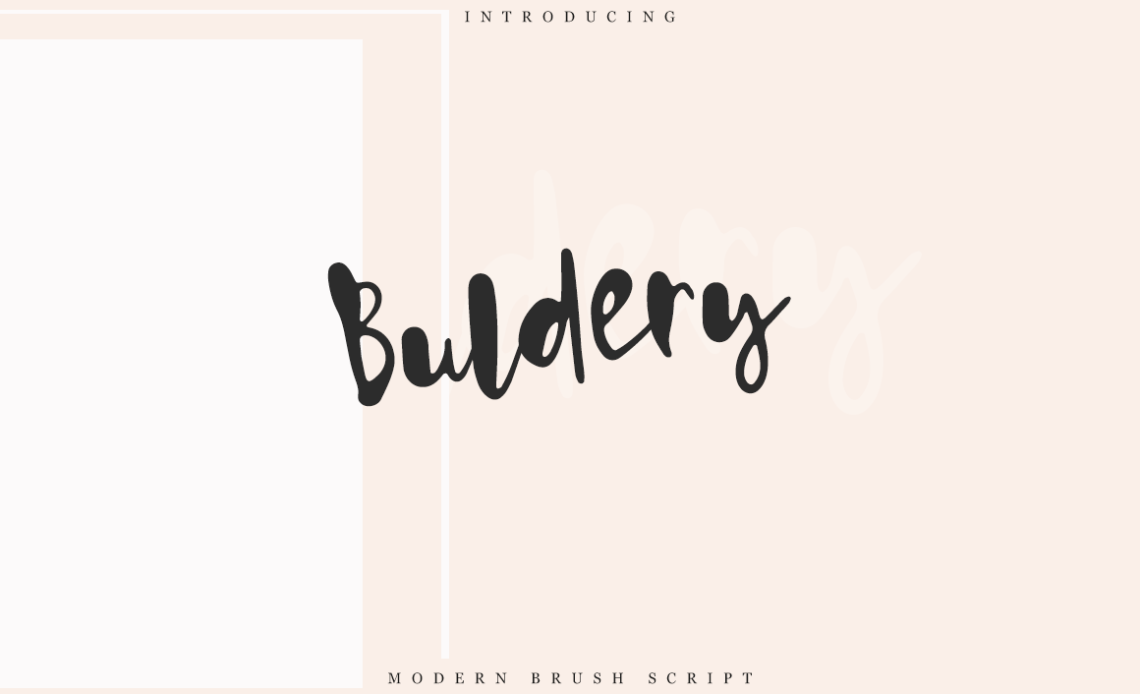
Buldery Font
Introducing the captivating Buldery Font, a breathtaking script that's the epitome of modern elegance and laid-back charm. This masterpiece, meticulously crafted by the renowned Pasha Larin, is designed to evoke a sense of endearment with every stroke.
Indulge in the beauty of Buldery's graceful curves, playful flourishes, and subtle imperfections. These elements harmoniously blend to create a font that's both alluring and endearing. With its versatility, Buldery is the perfect companion for a wide range of creative endeavors, from heartfelt invitations to eye-catching branding.
Immerse yourself in the world of Buldery, where creativity flows effortlessly. Its captivating nature will ignite your imagination, making every design project a captivating experience. Don't settle for ordinary fonts; embrace the extraordinary with Buldery.
Let Buldery weave its magic into your designs. Its enduring charm will captivate your audience, leaving a lasting impression. Experience the allure of Buldery today and unlock the endless possibilities of your creative expression.